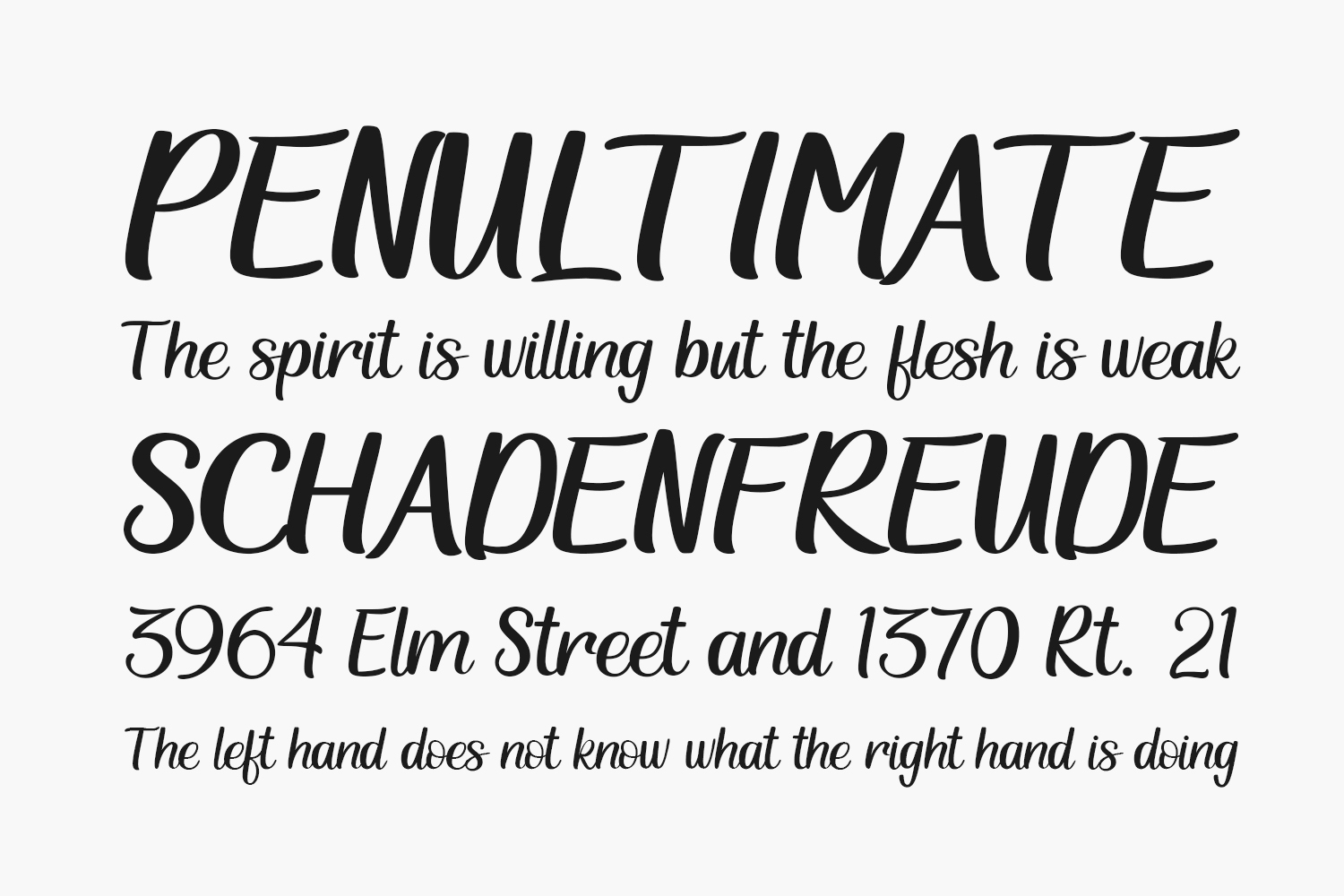
Honey Latte Free Font is a unique and elegant handwritten font. It looks beautiful on a variety of designs requiring a personalized style, such as wedding invitations, thank you cards, weddings, greeting cards, logos, and so on. Honey Latte Free Font was designed by Kurnia Setyadi and is free for personal use only. Please purchase the full version for commercial use.